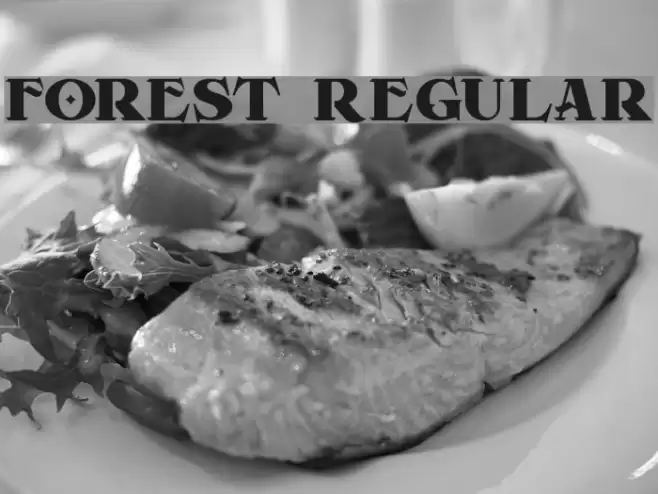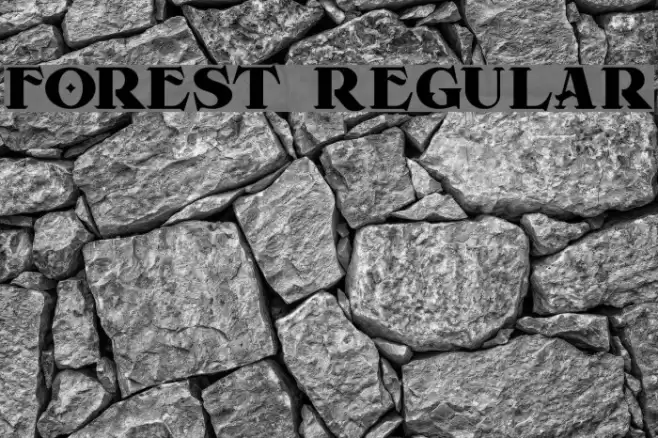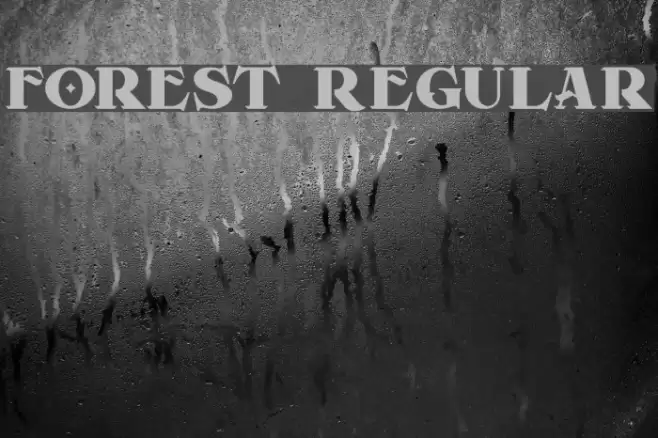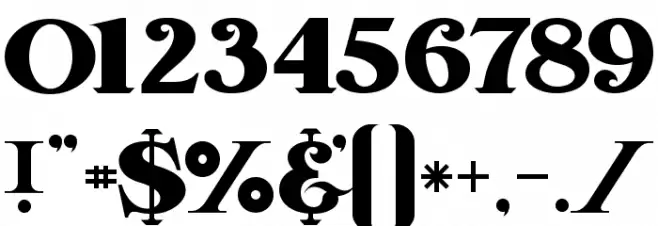
Forest Regular Font
Forest Regular Description
This font features a bold and decorative style with intricate details that add a unique flair to each character. The uppercase letters are particularly striking, with embellishments that give them a vintage and artistic appearance. The numbers and special characters maintain this decorative theme, making the font suitable for creative and eye-catching designs. The overall style is reminiscent of classic serif fonts but with a modern twist that makes it stand out. The strokes are thick and consistent, providing a strong visual impact.
A bold, decorative font with vintage flair and intricate details from Uncategorized fonts.
- Proposed Projects: Ideal for branding, posters, and artistic projects that require a strong visual impact.
- Overall Style: Vintage, Decorative